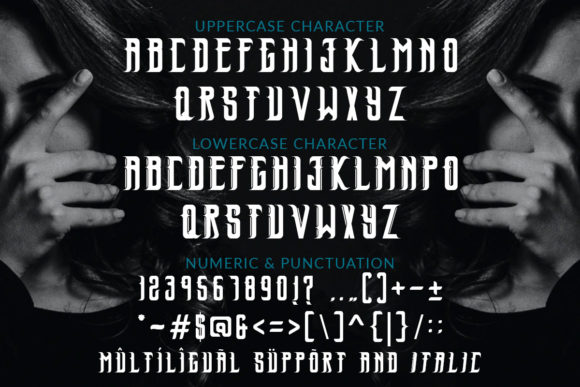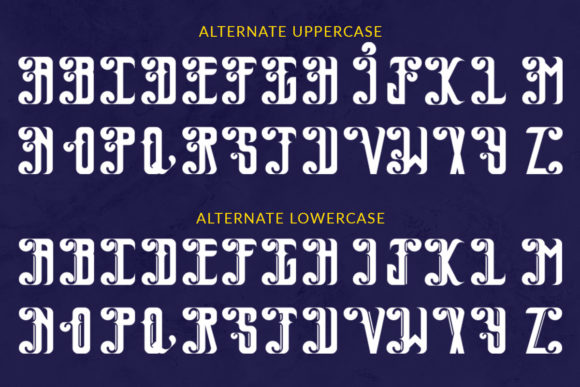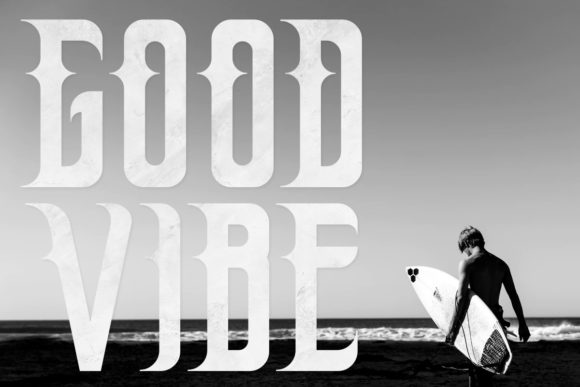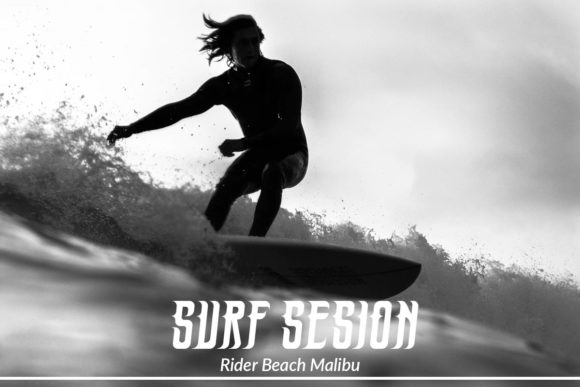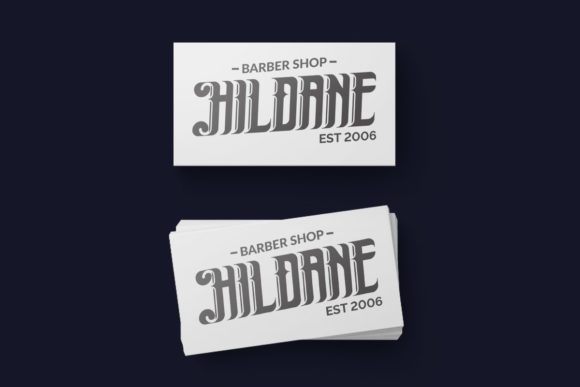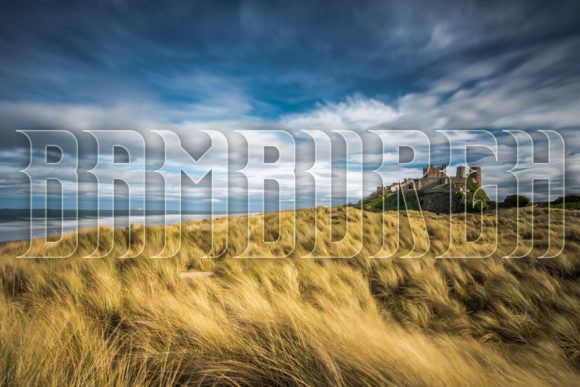
Introduction to Hildane Font
Have you ever stared at a blank page, waiting for inspiration to strike, only to have a burst of creativity hit you like a ton of bricks? For designers, those moments are what make all the hard work worth it. And when that spark hits, you want a font that can keep up – something that’s both bold and elegant, yet versatile enough to fit any high-quality design.
Enter the Hildane Font, a stunning display font that’s perfect for adding a touch of sophistication to your next creative project. With its transparent background and sleek lines, this design resource is a must-have for anyone looking to elevate their stationery, letterheads, or titles. And the best part? It’s available as a free download, making it an accessible addition to any designer’s toolkit.
Key Features of Hildane Font
- High-quality design with a transparent background, ideal for creative projects and design resources.
- Unique characteristics include elegant lines, subtle curves, and a sophisticated aesthetic.
- Suitable for use in logos, branding, typography, and other design elements requiring a high-quality font.
Honest Review: Hildane Font
I recently came across the Hildane Font while searching for high-quality design resources for a creative project. I was impressed by its elegant and sophisticated design, making it a great addition to any design portfolio.
What works well for me is the transparent background, which allows for easy layering and editing. The font’s versatility makes it suitable for a wide range of designs, from corporate materials to personal branding projects.
- ✨ High-quality design: The Hildane Font boasts a refined and polished look, perfect for professional designs.
- ✨ Transparent background: This feature makes it easy to customize and layer the font with other design elements.
However, I did notice a few limitations ⚠️:
- ⚠️ Limited character set: The font has a relatively small character set, which may not be suitable for complex designs or languages that require a wider range of characters.
- ⚠️ Not suitable for small text: The font’s elegant design makes it difficult to read at small sizes, which may be a limitation for certain designs.
Overall, I’m impressed with the Hildane Font, and I would recommend it to designers looking for a high-quality, elegant font for their creative projects.
Hildane Font
The Hildane Font is ideal for creative projects, such as graphic design, digital art, and typography. It’s also perfect for use in presentations, documents, and social media posts.